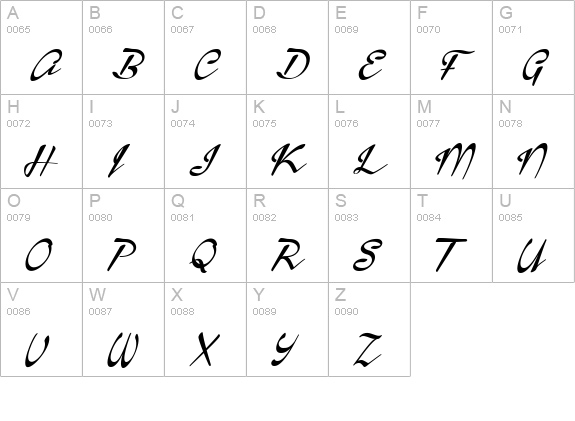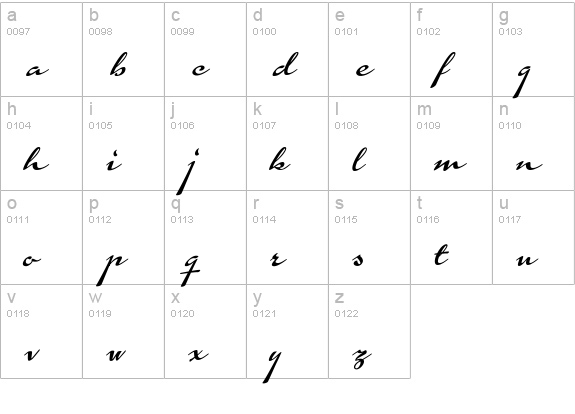
Calendary Hands PERSONAL USE DEMO font is a stunning display typeface that exudes elegance and charm. Its intricate details and delicate strokes make it perfect for adding a touch of sophistication to any design project. With its unique hand-drawn style, Calendary Hands PERSONAL USE DEMO font will capture attention and leave a lasting impression. This font is not only visually appealing but also highly versatile. It can be used for a variety of purposes, including branding, logos, invitations, packaging, and more. Whether you're designing a wedding invitation or creating a beautiful logo for your business, Calendary Hands PERSONAL USE DEMO font will elevate your designs to the next level. One of the best things about Calendary Hands PERSONAL USE DEMO font is that it is free for personal use. This means that you can download and use it in your personal projects without any restrictions. It's a great opportunity to explore the font's unique features and experiment with different design ideas. To download Calendary Hands PERSONAL USE DEMO font for free, simply visit FontsMarket.com. There, you'll find a wide range of fonts available for download, including this beautiful display typeface. FontsMarket.com is a trusted source for high-quality fonts, and their easy-to-use platform ensures a seamless downloading experience. Don't miss out on the opportunity to enhance your designs with Calendary Hands PERSONAL USE DEMO font. Its free availability makes it accessible to everyone, so go ahead and add a touch of elegance to your next design project. Download Calendary Hands PERSONAL USE DEMO font today from FontsMarket.com and let your creativity soar.